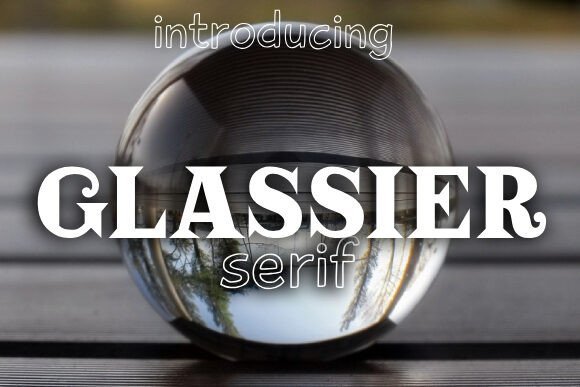
Introduction to Glassier Font
Glassier is awesome Serif font that will fit on any of Your designs.
Use this font on posters, flyers and much more .
Key Features of Glassier Font
Why Choose Glassier Font?
Glassier Font offers exceptional quality and versatility, making it a valuable addition to your design toolkit. Whether you’re creating for personal projects or commercial use, Glassier Font delivers professional results.